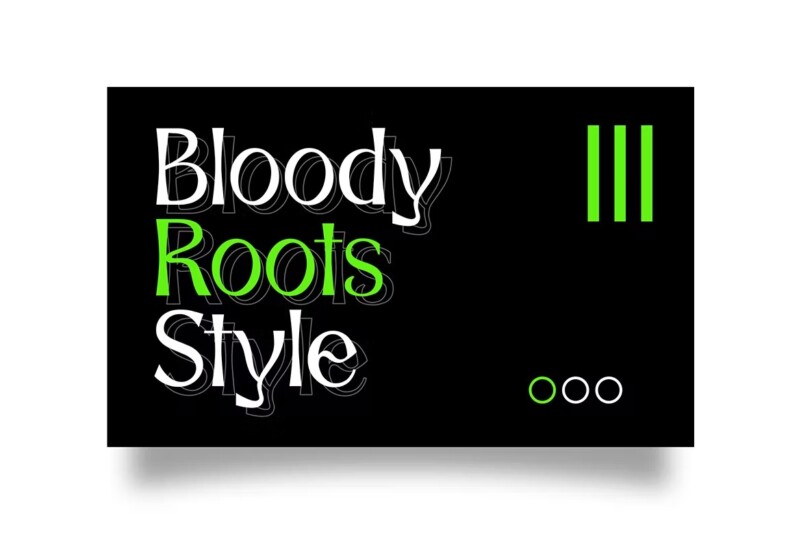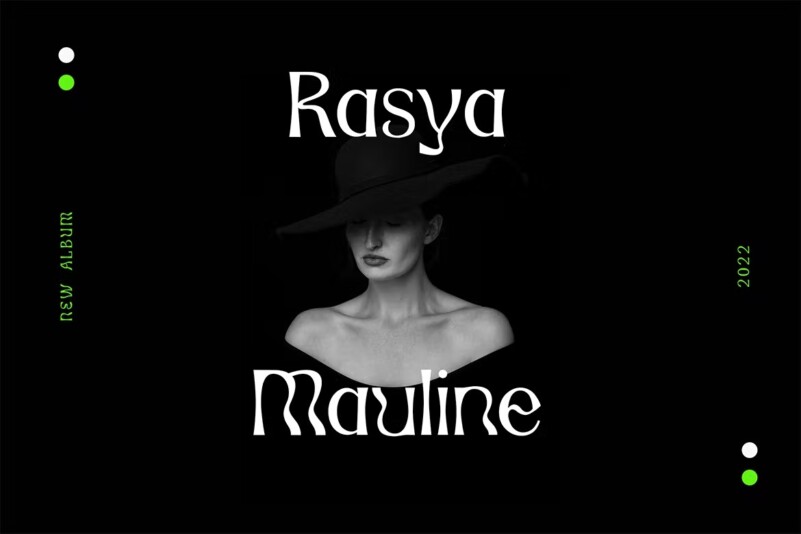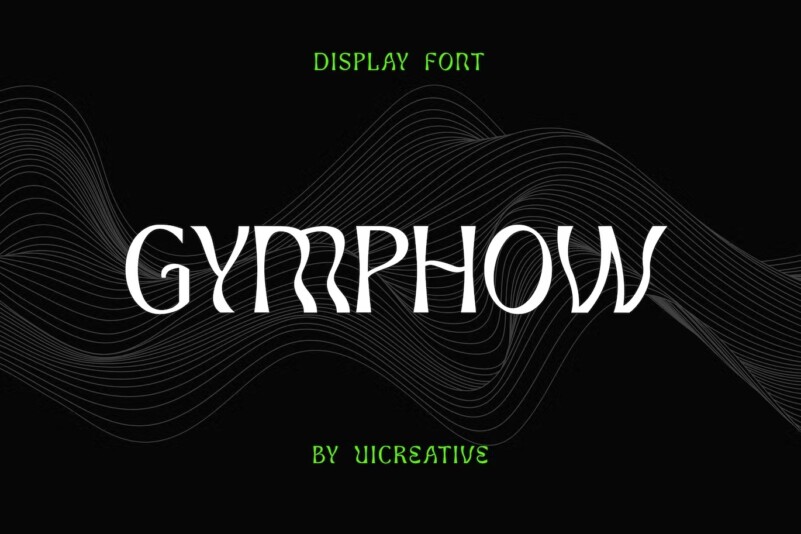
Gymphow – Modern Serif Display Font
Introducing our new product, the name is Gymphow Modern Serif Display Font . A modern Serif font that gives an impression of beauty, class, elegance and modernity. This font is perfect for a wide variety of projects, such as signature, stationery, logo, weddings, typographic quotes, magazine or book covers, website headers, apparel, branding, packaging design, etc. Additionally, fashion-related branding or editorial design exhibits both masculine and feminine qualities.